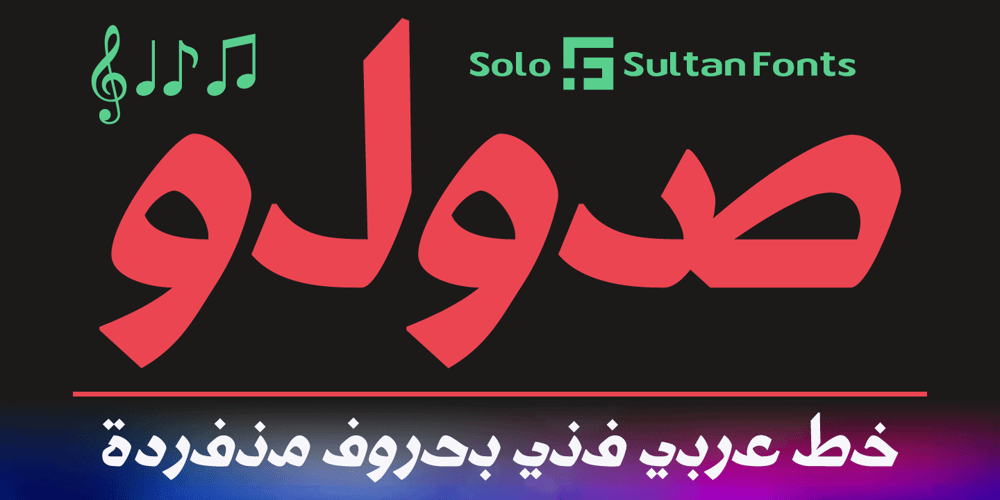
SF Solo Font Family was designed by Sultan Maqtari and published by Sultan Fonts. SF Solo contains 1 styles and family package options. Solo is a renovation of an Arabic font designed by Sultan Maqtari in 2012 Solo is distinguished by its single and unconnected letters, as is the case with other Arabic fonts. Its letters are contemporary and do not dispense with the features of Arabic letters that are clear, legible and simple. But it gives user different creative possibilities,This font can be used in all artistic and creative projects in print and screen.